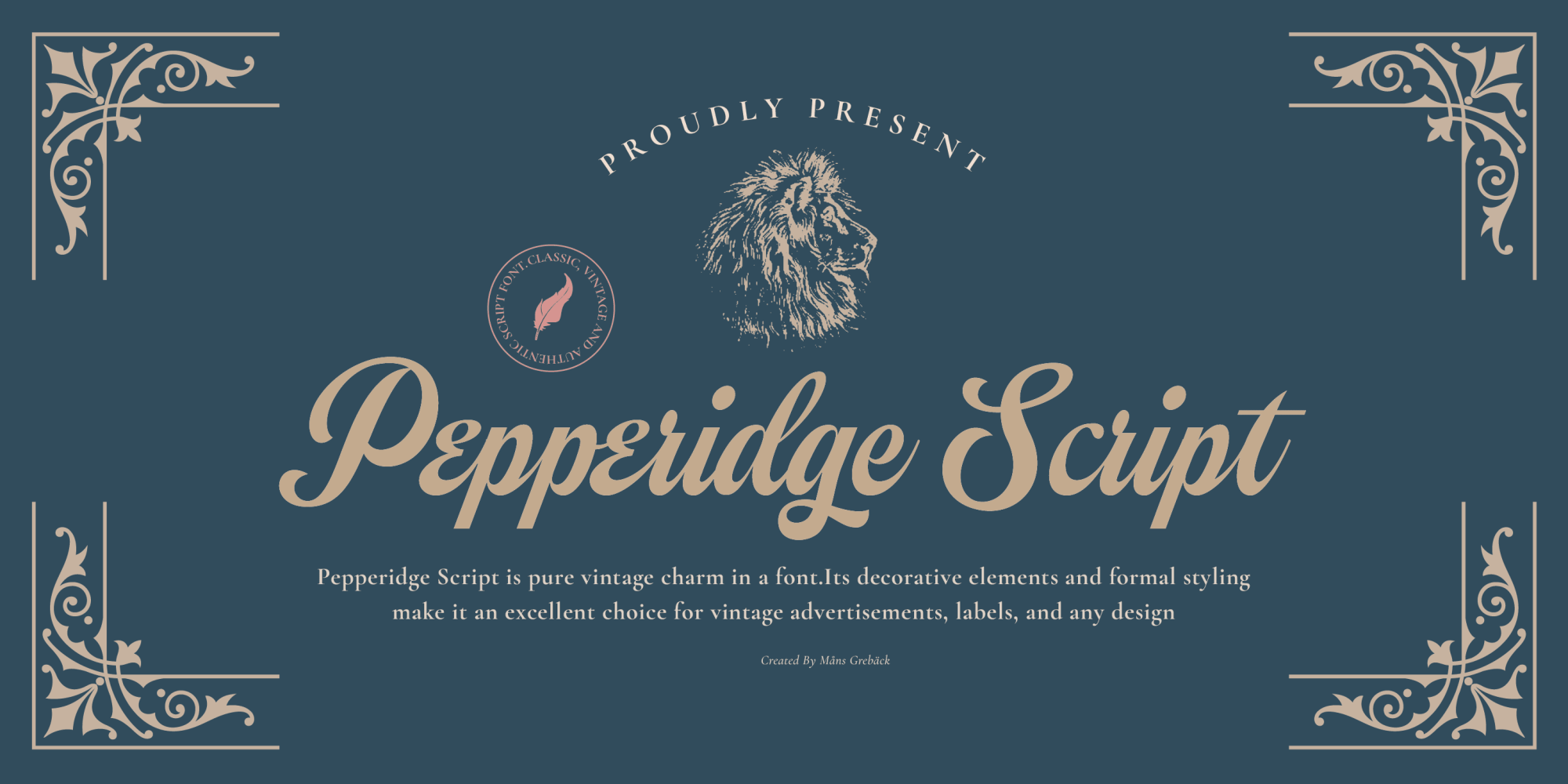
Pepperidge Script Font
Pepperidge Script is an authentic vintage-style font that evokes the charm of classic speakeasies and bygone eras. This typeface brings a touch of historical elegance to your designs, perfect for creating a nostalgic atmosphere with each keystroke.
Key Features of Pepperidge Script:
• Vintage Appeal: Inspired by the classic cocktails and lively chatter of old speakeasies, Pepperidge Script adds a touch of nostalgia to your projects.
• Dynamic Swashes: Use underscores _ to create underlines, with multiple underscores allowing for different swash styles. For example, Food_Shop and Swash__iness demonstrate how the font’s swashes and ligatures can be utilized.
• OpenType Technology: Designed with OpenType technology, Pepperidge Script offers high-quality typographic features, including contextual and stylistic options. This includes a variety of ligatures, swashes, and other elements to personalize and enhance your text.
Ideal Uses for Pepperidge Script:
• Vintage Branding: Perfect for logos and branding projects that require a historical or retro feel.
• Invitations & Stationery: Ideal for creating elegant wedding invitations, event stationery, and other formal documents.
• Packaging & Advertising: Adds a classic touch to packaging designs, advertisements, and promotional materials.
• Design Projects: Enhances a variety of design projects with its vintage charm and customizable features.